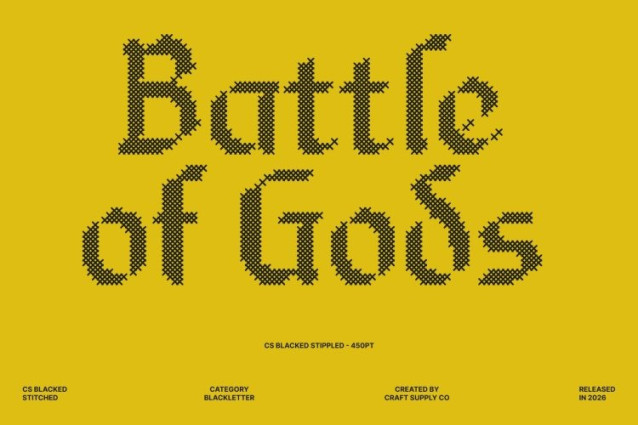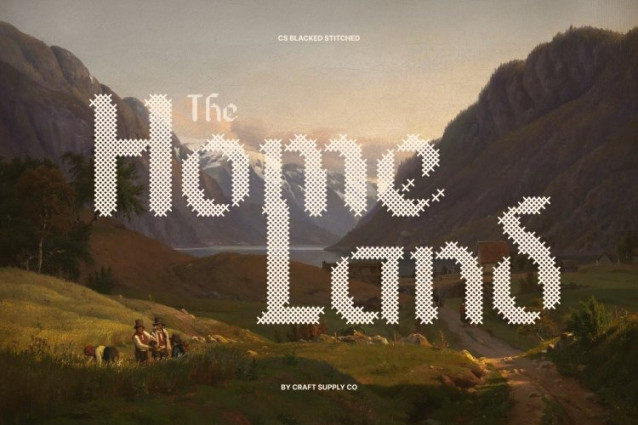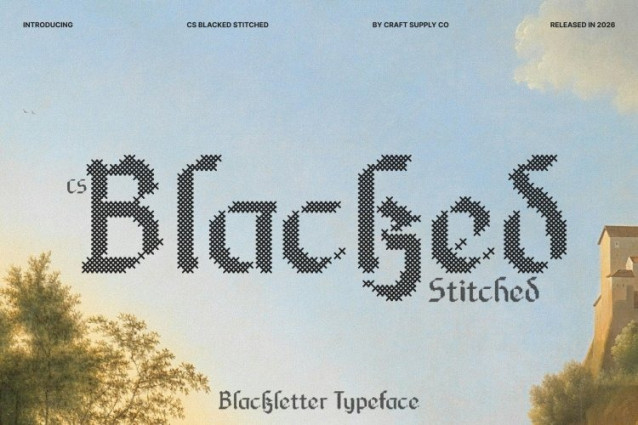
CS Blacked Stitched Font
CS Blacked Stitched Font – This is a striking Blackletter display serif font that embraces the timeless elegance of traditional Gothic typography. Known for its intricate structure and sharp stylistic details, this typeface carries a strong historical presence while remaining visually captivating for modern design.
Bold Letterforms with Embossed Stitch Texture
The bold and authoritative shapes of this font are complemented by a distinctive cross-shaped stitch pattern that creates an embossed, fabric-like texture across each character. This stitched detailing adds depth and tactile richness, giving the font a classic, nostalgic, relaxed, and warm impression while preserving the strong visual impact of traditional Blackletter forms.
Historical Elegance with Distinctive Visual Identity
Rooted in the aesthetics of medieval calligraphy and Gothic manuscripts, this font delivers a powerful sense of heritage and sophistication. Its ornate structure combined with the stitched texture creates a unique balance between historical elegance and handcrafted artistry, making every letter visually engaging and expressive.
Perfect for Luxury, Heritage, and Statement Designs
This is ideal for luxury branding, formal invitations, editorial headlines, packaging, posters, and themed event materials. Its fusion of classic Blackletter tradition and stitched detailing makes it especially suited for projects that seek a prestigious, historical, or craft-inspired aesthetic.